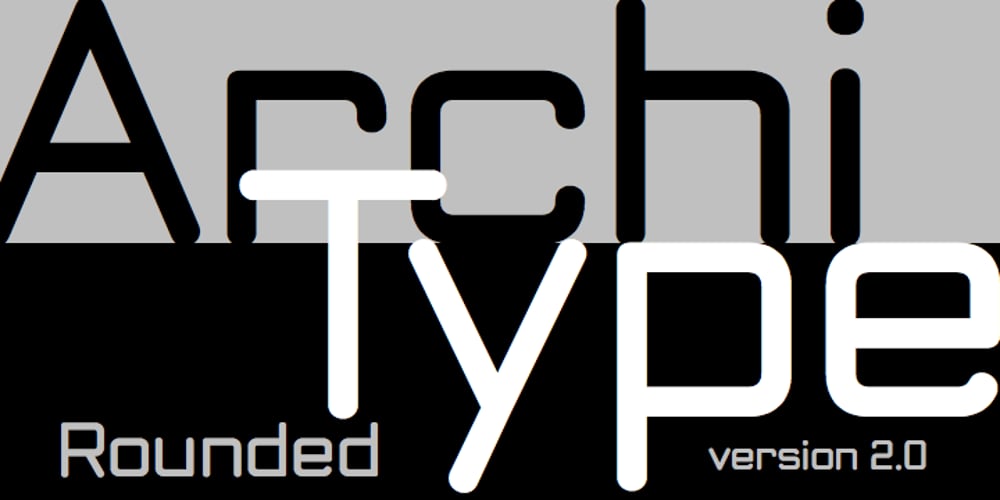
ArchiType Rounded
ArchiType Rounded font
ArchiType Rounded Font Family was designed by Wico Valk and published by Archiness. ArchiType Rounded contains 4 styles and family package options. ArchiType Rounded is not just the rounded version of the ArchiType font. The aim was to get a slightly different balance between the squareness and the roundness of the original font. Now with rounded endings, resulting in a smoother appearance. Every glyph is redesigned, around 70 glyphs have been added and kerning has been vastly improved.